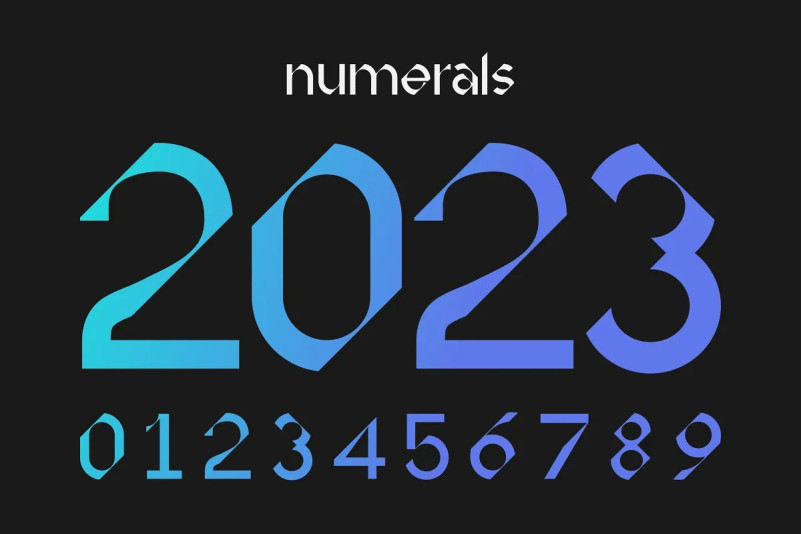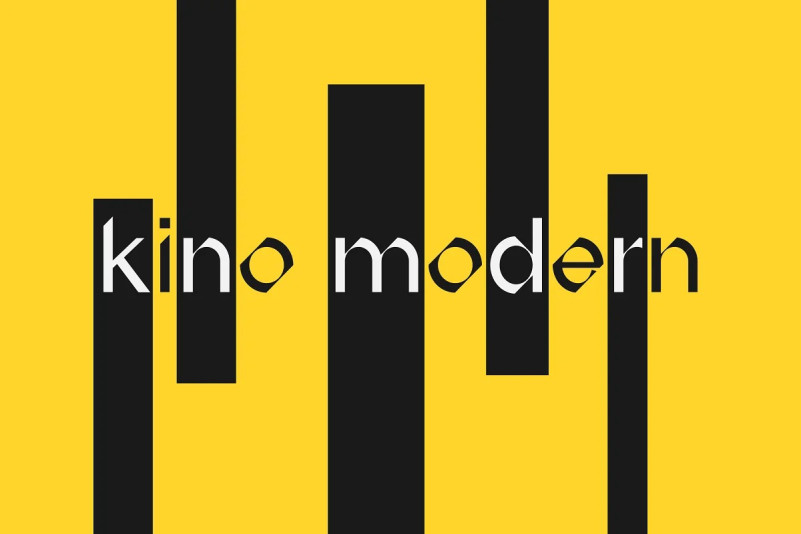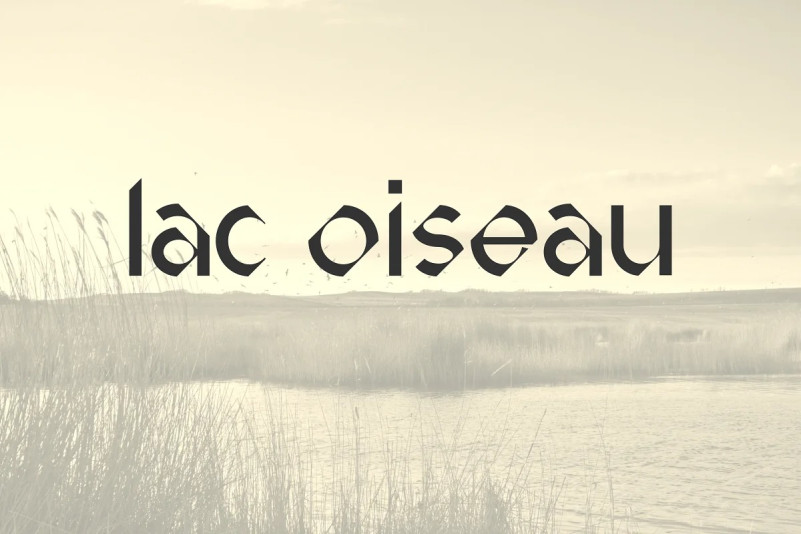
Lac Oiseau Font
Lac Oiseau Display Font is a display font with a strong and unique personality. It’s perfect for logos, magazine headlines, posters and such.